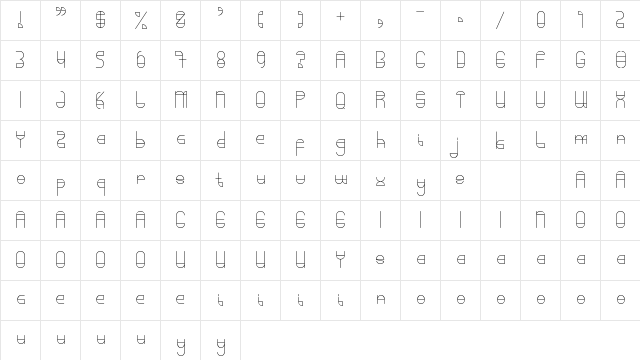
Umbrellast Regular
| Foundry | fontself |
| Designer | Typemacs |
Design Context for Umbrellast Typeface
Umbrellast takes a measured approach to typography — its balanced proportions and neutral character make it a reliable workhorse for both digital and print work.